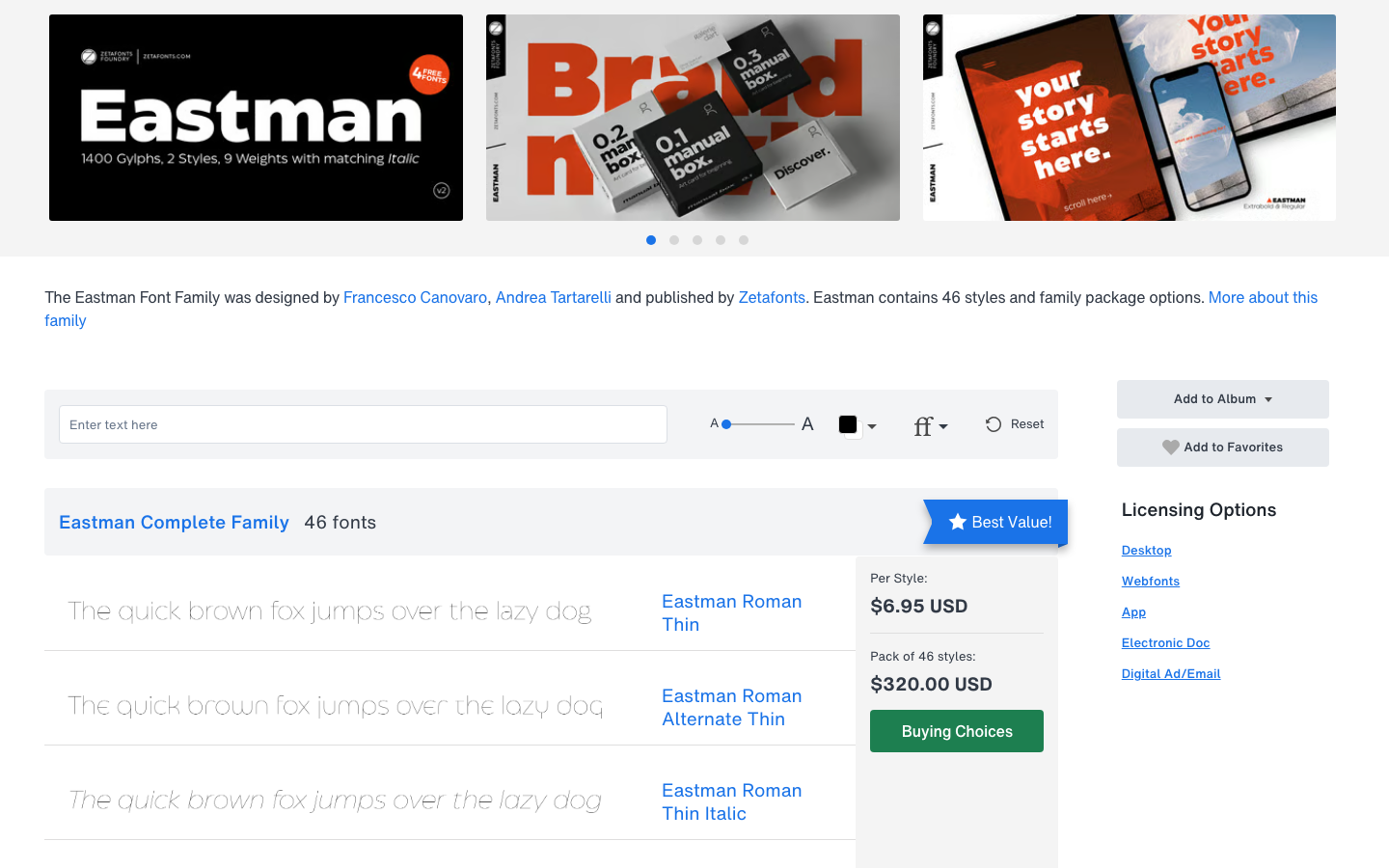
Eastman Alternate vs Helvetica Rounded
Eastman Alternate and Helvetica Rounded are both sans-serif typefaces sharing a neo-grotesque foundation. Where Eastman Alternate leans minimal, Helvetica Rounded brings rounded, warm. Compare which suits your Branding project.
Recommended: Eastman Alternate
- minimal design character
- From zetafonts
Consider: Helvetica Rounded
- rounded, warm design character
- Suited for Packaging
- From linotype